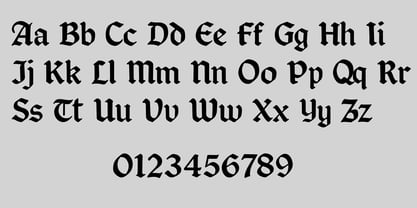
Calderon
by Eroane Creative
The Calderon Font Family was designed by Erick Rismawan and published by Eroane Creative. Calderon contains 3 styles and family package options. More about this family
Calderon is a classic Rotunda-style typeface that blends the elegance of medieval calligraphy with a refined modern touch. Inspired by historical manuscripts and Gothic script from Europe’s golden era, Calderon offers a bold yet graceful presence that stands out in any design. Each letterform is carefully crafted to capture the authentic character of Rotunda — featuring strong vertical strokes, smooth rounded curves, and a balanced rhythm that evokes timeless sophistication. The result is a font that brings historical depth and elegance to modern creative projects. Perfect for: Branding & logos Book covers and editorial titles Wedding invitations & certificates Historical, fantasy, or luxury-themed designs Packaging, signage, and display typography Features: Authentic Rotunda style with modern refinement Elegant and bold character shapes High-quality craftsmanship suitable for print and digital use Commercial use allowed Let Calderon infuse your work with the majestic spirit of the past — a timeless typeface for truly distinctive designs.
Designers: Erick Rismawan
Current Foundry: Eroane Creative
Calderon